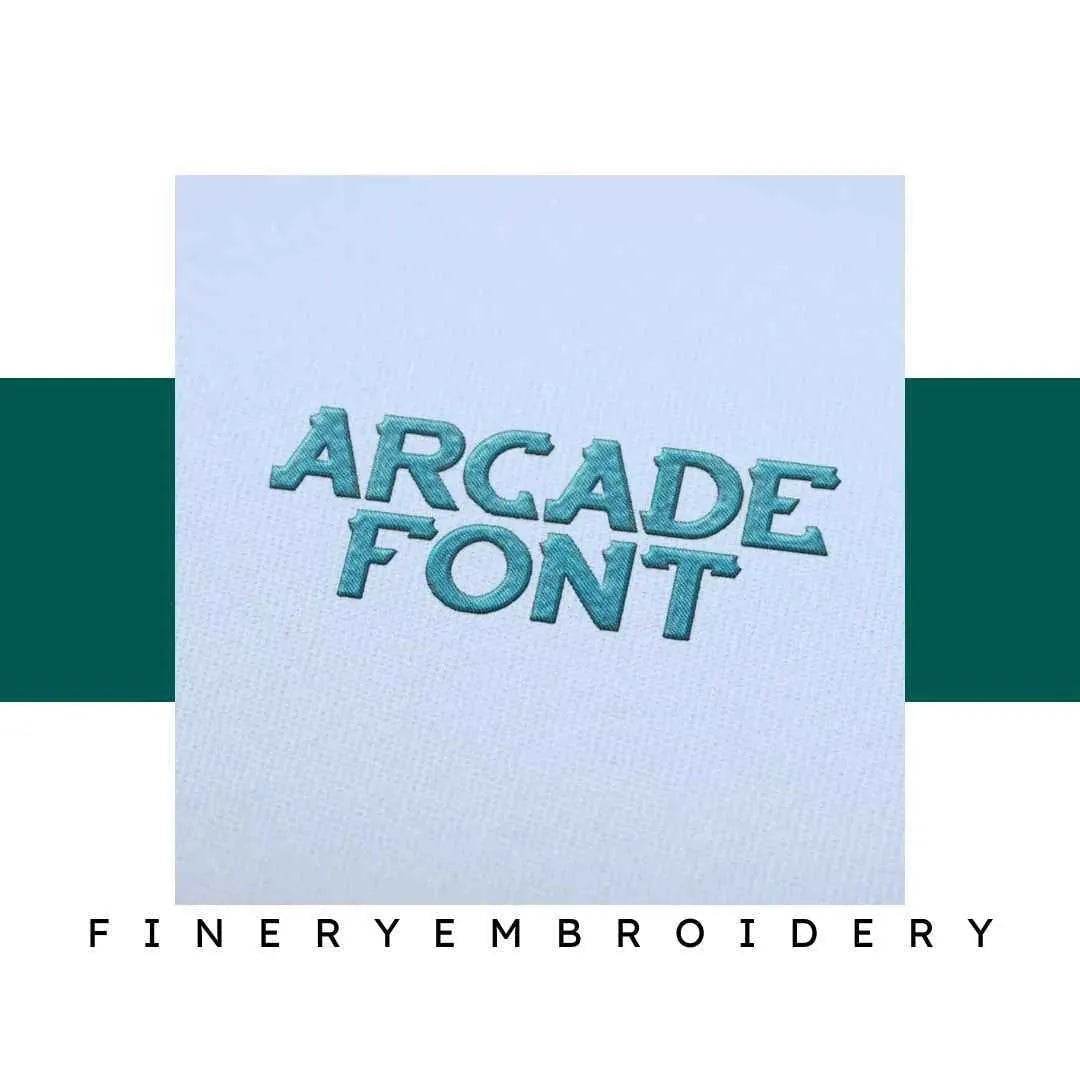
Unleash your creativity with the Arcade Embroidery Alphabet Font Set – where elegance meets versatility!
Introducing the Arcade Embroidery Alphabet Font Set, a carefully curated collection that embodies elegance and high-quality craftsmanship. This font set is intricately designed to enhance your embroidery projects, allowing you to create personalized items that reflect your unique style.
Each letter in the Arcade Font Set is crafted with precision, providing a touch of sophistication to your creations. The elegant design ensures that your embroidery stands out, making it perfect for everything from clothing to home decor. You'll appreciate the professional quality and attention to detail that each letter brings to your work.
This versatile font set is ideal for a wide range of projects. Whether you’re personalizing bags, creating custom apparel, or adding unique touches to home decor items, the Arcade Alphabet Font Set offers the flexibility to elevate any project. Explore your creativity and watch your ideas come to life with stunning results!